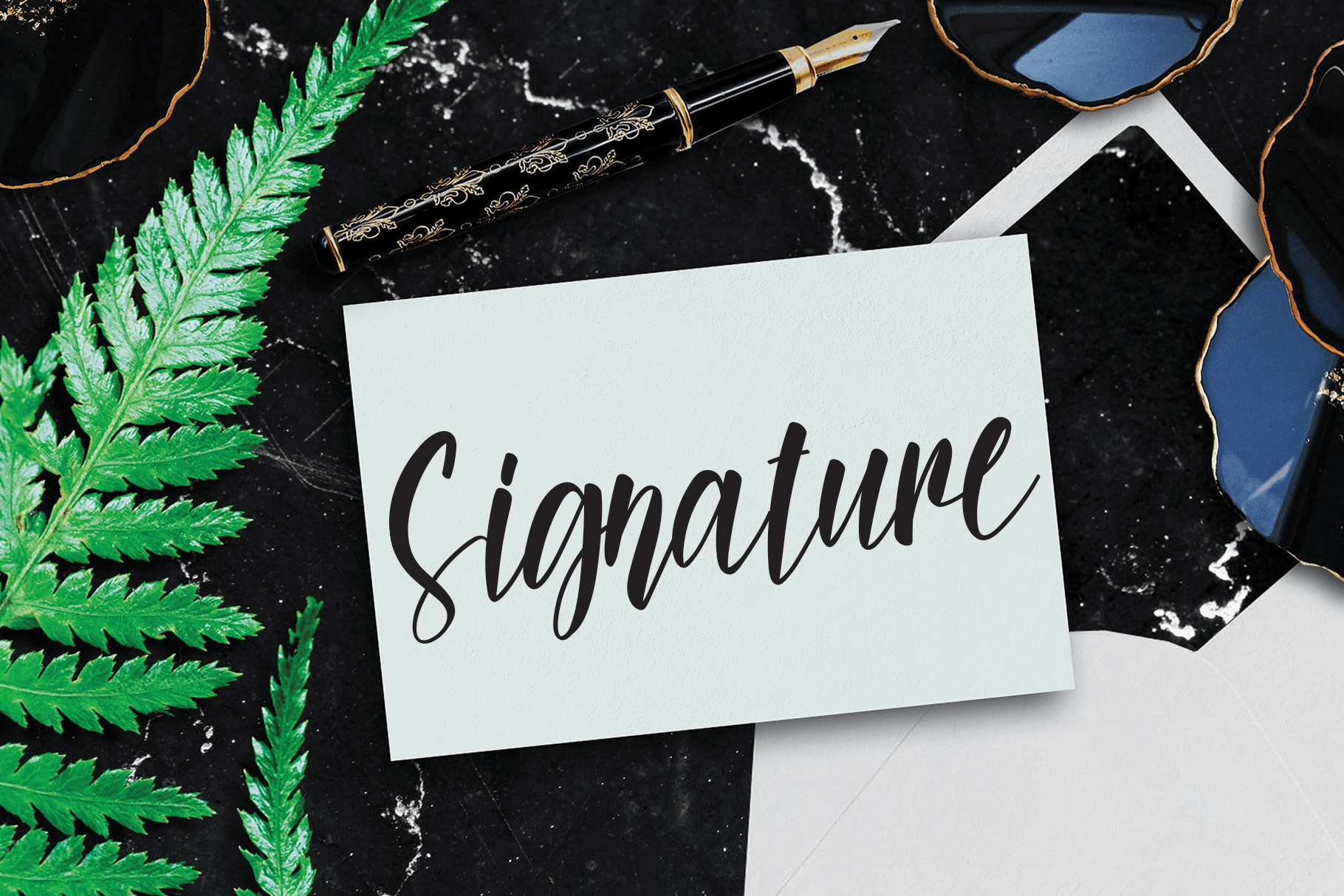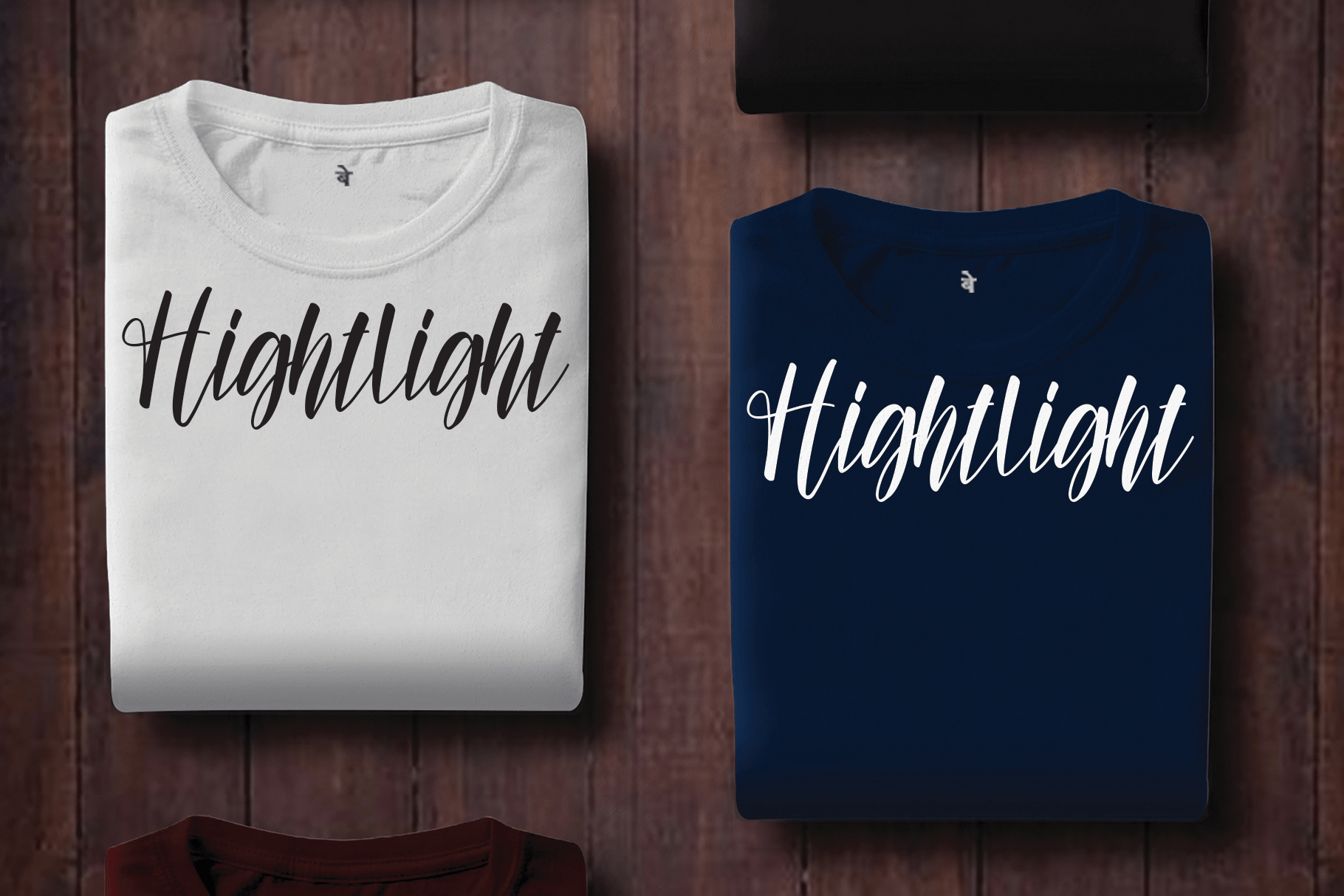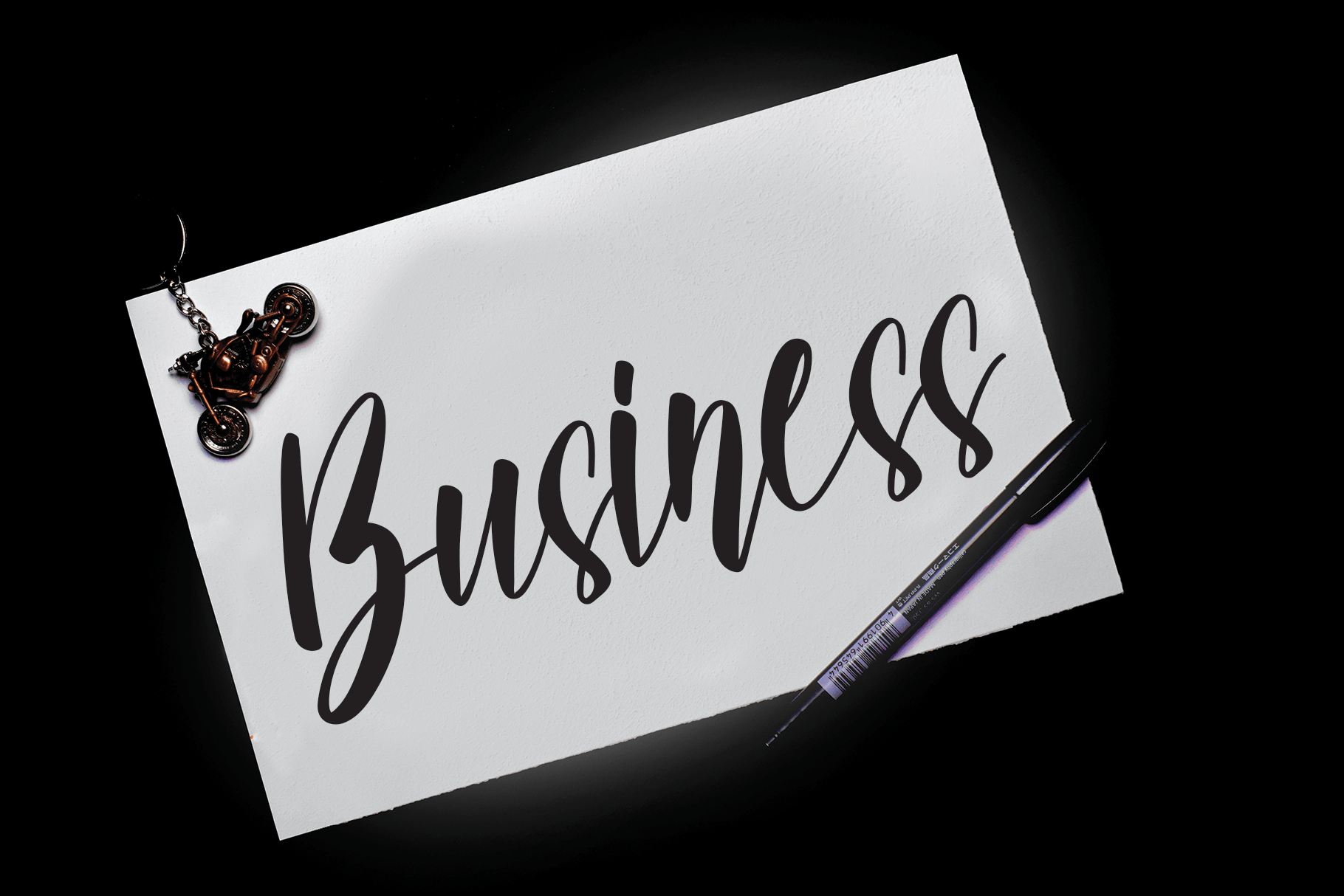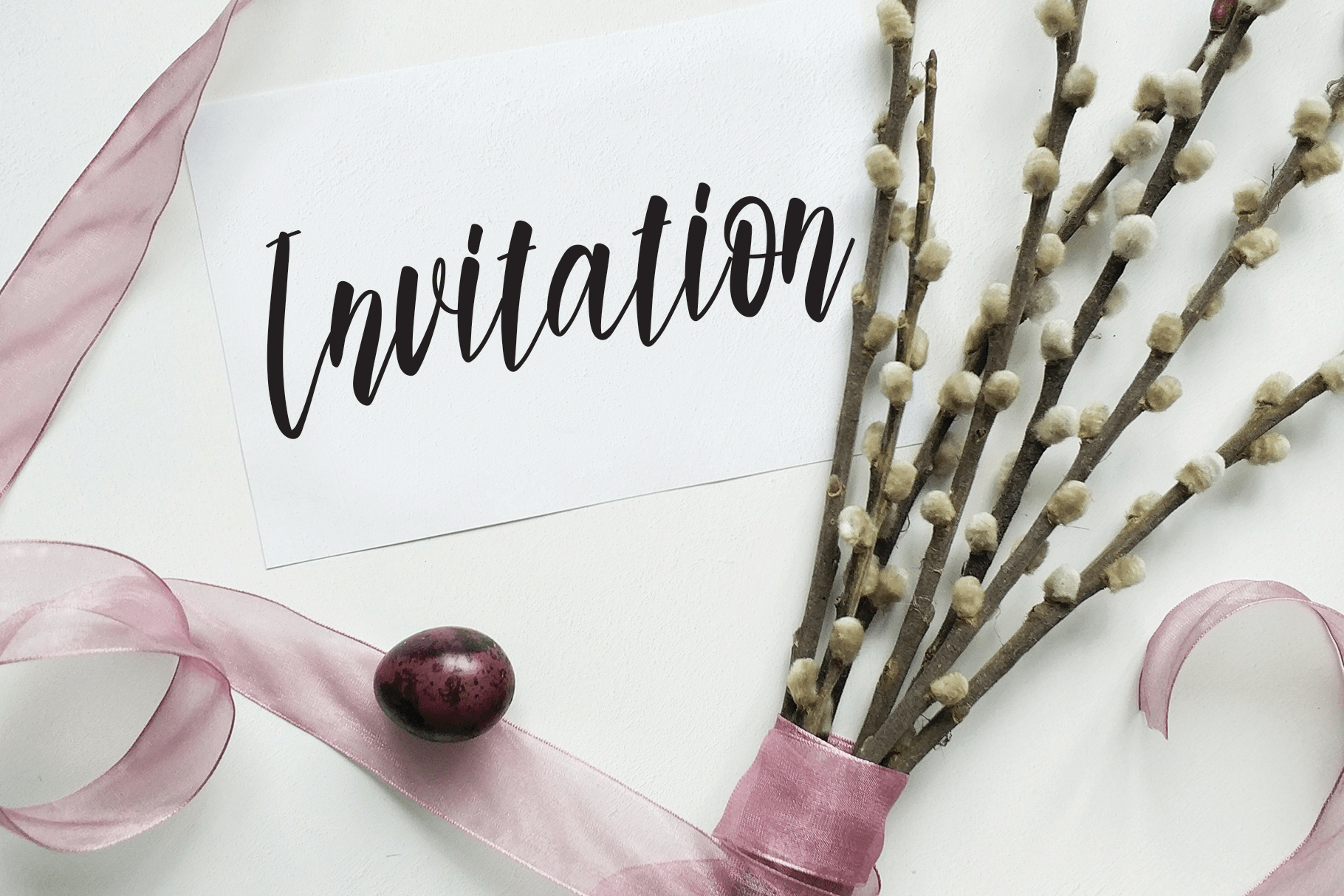
Birthday Font
Birthday Script Font
This is inspired by classic typography and brings its own unique style to any design project. Whether it’s for web, print, moving images or anything else – Birthday will look spectacular.